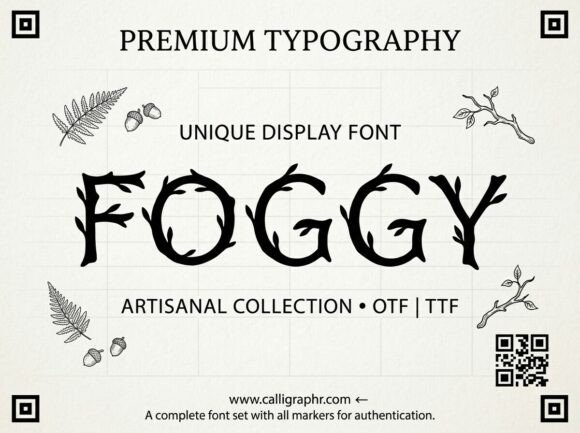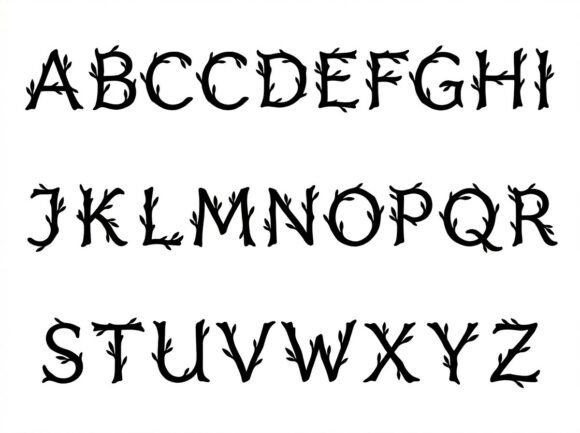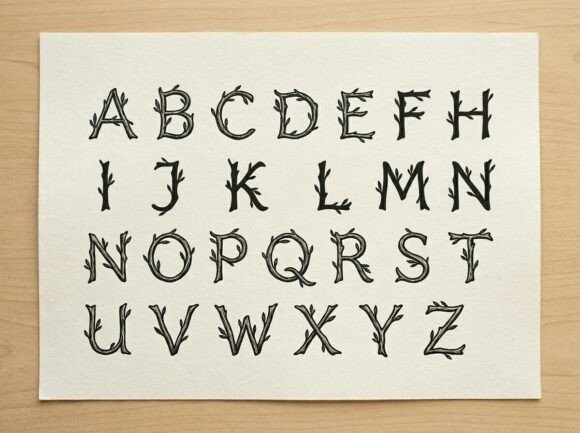
Introducing Foggy Font: A Stunning Decorative Display Font
Are you tired of using the same old fonts for your creative projects? Look no further than Foggy Font, a unique and artistic display font that’s sure to turn heads. Designed to be the center of attention, Foggy Font features a strong visual personality and versatile design that’s perfect for creators who want to break away from the ordinary.
What Makes Foggy Font Special?
Foggy Font is a decorative display font that’s specifically designed for high-impact headlines, logos, and decorative initials. With its unique artistic elements and strong visual personality, this font is perfect for creators who want to make a statement. Whether you’re designing a bold headline, a artistic logo, or creative packaging, Foggy Font is the perfect choice.
Key Features of Foggy Font
- Unique Artistic Elements: Foggy Font features unique artistic elements that set it apart from other fonts. Each letter is carefully crafted to be a work of art, making it perfect for decorative initials and high-impact headlines.
- Strong Visual Personality: With its strong visual personality, Foggy Font is sure to grab attention and make a lasting impression.
- Versatile Design: Foggy Font is versatile enough for use in a variety of creative projects, from bold headlines and artistic logos to creative packaging.
- Professional and Polished Finish: Despite its decorative nature, Foggy Font maintains a professional and polished finish that’s perfect for use in high-end designs.
⚠️ IMPORTANT NOTE BEFORE PURCHASE: Foggy Font is an ALL-CAPS (Uppercase Only) display typeface. It does not include lowercase letters. It is specifically designed for high-impact headlines, logos, and decorative initials where every letter is a work of art.
Who is Foggy Font For?
Foggy Font is perfect for:
- Graphic Designers: Looking for a unique and artistic font to add to their collection.
- Log designers: Wanting to create eye-catching and memorable logos.
- Crafters: Creating handmade products and looking for a font to add a personal touch.
- Marketing and Advertising Professionals: Needing a font that will grab attention and make a lasting impression.
Tips for Using Foggy Font
Here are some tips for getting the most out of Foggy Font:
- Use it sparingly: Foggy Font is a decorative font that’s meant to be used sparingly. Use it for headlines, logos, and decorative initials to add a touch of elegance and sophistication.
- Pair it with a simple font: Pair Foggy Font with a simple font to create contrast and make your design stand out.
- Experiment with colors: Foggy Font looks great in a variety of colors. Experiment with different colors to find the one that works best for your design.
Foggy Font is a stunning decorative display font that’s perfect for creators who want to break away from the ordinary. With its unique artistic elements, strong visual personality, and versatile design, this font is sure to turn heads. Whether you’re a graphic designer, log designer, crafter, or marketing professional, Foggy Font is a great addition to your collection.